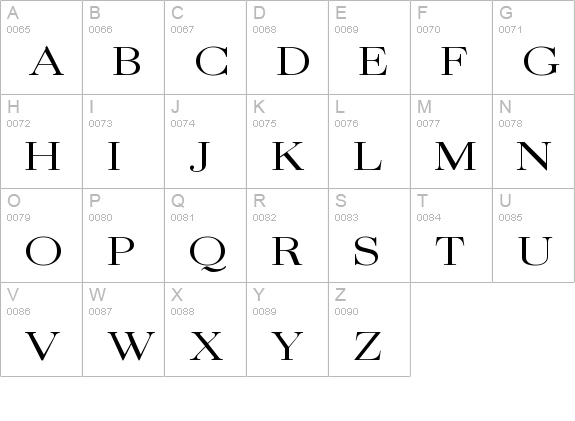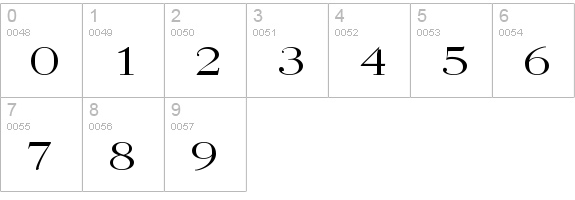
Quantas Broad Light Regular is a refined, elegant variant in the Quantas typeface family \xE2\x80\x94 well suited to elegant body text, refined sub-headings, and luxury branding.
Quantas Broad Light Regular is a modern and versatile font that exudes elegance and sophistication. With its clean lines and balanced proportions, this font is perfect for a wide range of design projects, from branding and advertising to packaging and editorial layouts. The light weight of Quantas Broad adds a touch of delicacy and subtlety, making it ideal for conveying a sense of refinement and professionalism. Whether used for headlines, subheadings, or body text, this font ensures clear legibility while maintaining a sense of style. What sets Quantas Broad Light Regular apart is that it is freely available to download at FontsMarket.com. This means that designers and creatives can easily access and use this font without any cost or restrictions. Its availability on FontsMarket.com allows for seamless integration into various design software, making it a convenient choice for both personal and commercial projects. With its timeless appeal and versatile nature, Quantas Broad Light Regular is a must-have font for designers seeking a modern and sophisticated aesthetic. Its combination of elegance, legibility, and the fact that it is freely available to download, makes it an invaluable resource for any design toolkit.